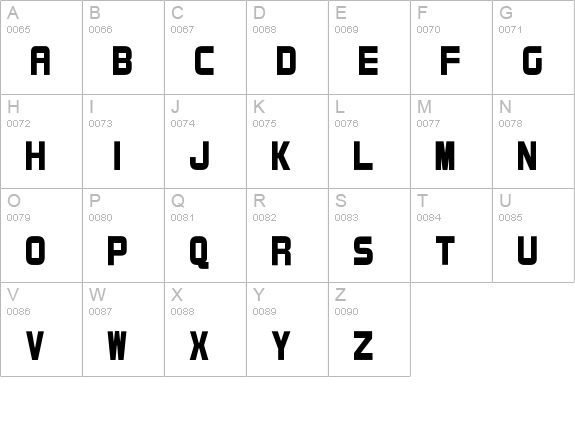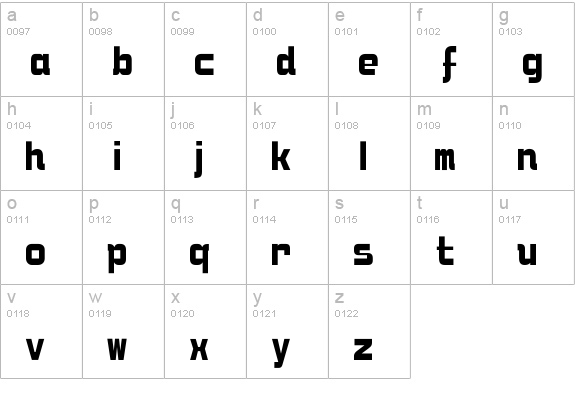
µØ±dºîÃÀÅé Font Details
Introducing the captivating and unique µØ±dºîÃÀÅé font, a stunning typeface that exudes elegance and modernity. This font is perfect for adding a touch of sophistication to any design project, whether it be for print, web, or digital media. With its intricate and well-crafted letterforms, µØ±dºîÃÀÅé font stands out from the crowd, making a lasting impression on viewers. Its sleek and stylish appearance is sure to grab attention and elevate your designs to new heights. But what makes µØ±dºîÃÀÅé font even more enticing is that it is freely available to download at FontsMarket.com. Yes, you read that right - this incredible font can be yours without any cost. FontsMarket.com is a reliable and trusted source for fonts, offering a vast collection of high-quality typefaces, and µØ±dºîÃÀÅé font is just one of the many gems you can find there. Whether you're a professional designer looking to add a touch of sophistication to your latest project or an individual seeking a stylish font for personal use, µØ±dºîÃÀÅé font is the perfect choice. Its versatility and captivating presence make it suitable for a wide range of applications, from branding and advertising to invitations and social media graphics. So why wait? Head over to FontsMarket.com and download µØ±dºîÃÀÅé font today. Begin exploring the endless possibilities this font offers and elevate your designs to new levels of creativity and sophistication. With µØ±dºîÃÀÅé font in your toolkit, the possibilities are truly limitless.